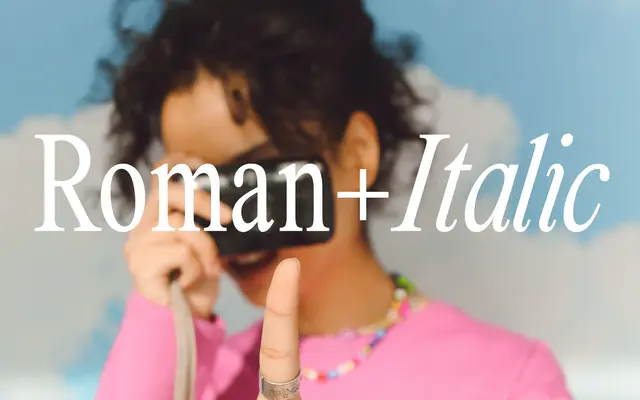
That That New Roman
A two-style serif pair in the Times New Roman tradition, offered in Regular and Italic with extended Latin coverage.
Issued as a straightforward Regular and Italic pair, the family draws on the transitional serif conventions associated with Times New Roman. Glyph coverage spans Basic Latin, Latin-1 Supplement, Latin Extended-A and -B, with a handful of OpenType alternates for characters including A, J, O and lowercase a, i, j and o. The offering is modest in scope, suited to text-setting work where a familiar serif structure is required.
The name and formal characteristics point to a Times New Roman lineage, placing it squarely in the transitional serif tradition with upright and italic companion cuts.